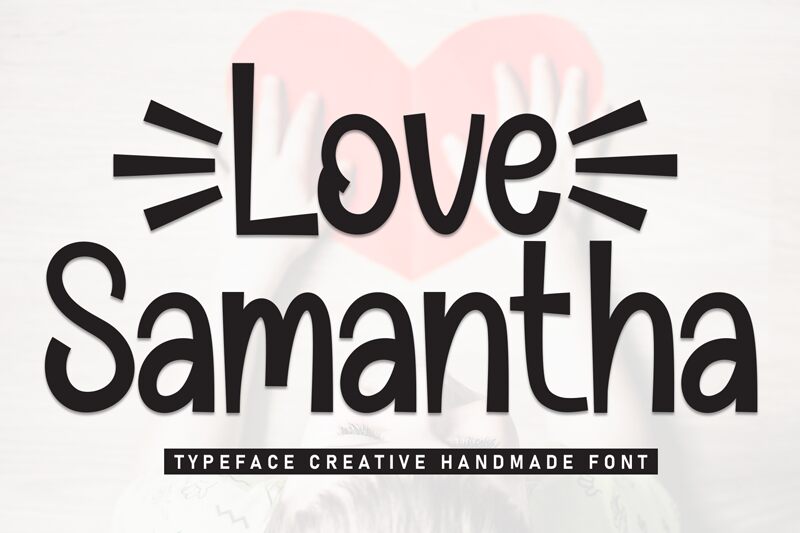
Love Samantha
Love Samantha font by Scratchones is a casual display typeface inspired by retro comic book letterings. The font embodies a friendly and energetic vibe that will instantly attract readers to any design that contains it. Free originally, the font's usage is further facilitated thanks to today's digital design software.
Integrate Love Samantha within branding designs or informal communication materials such as social media graphics. Online invitations, resource covers, newspaper titles, email animated headings, music or movie posters are options for work with this comic modern display font.